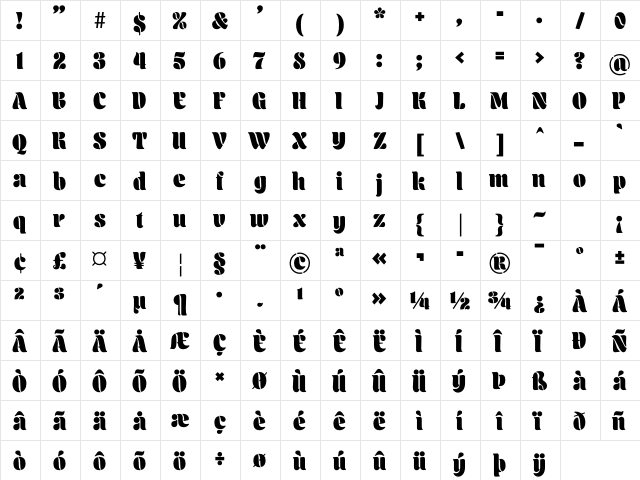
Aromatron Regular
| Foundry | Adam Jagosz |
| Designer | Adam Jagosz |
Design Context for Aromatron Typeface
Aromatron is a composed and adaptable typeface that performs quietly and consistently across a wide range of design contexts.